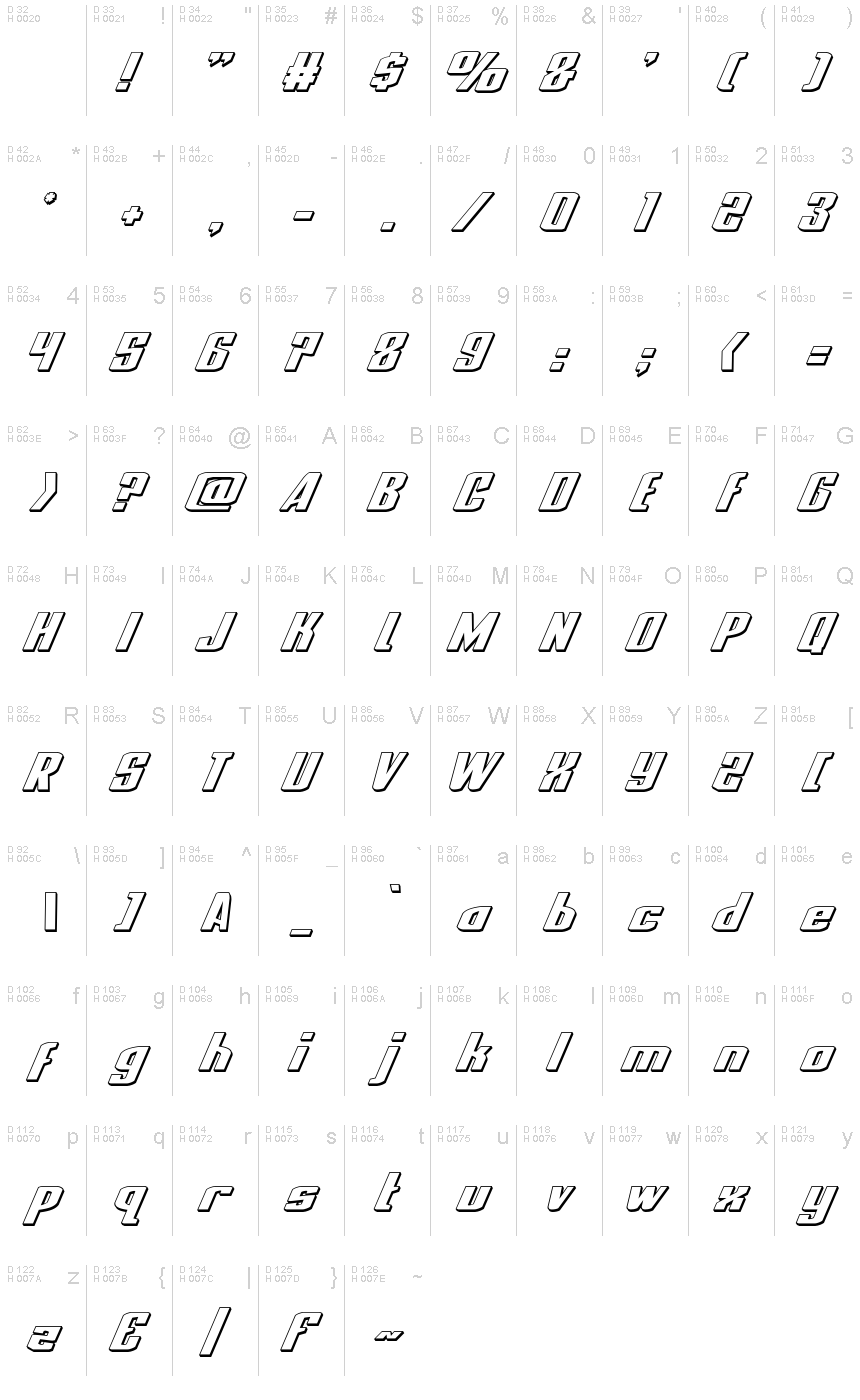
National Express 3D Italic
National Express 3D Italic is a striking display font that exudes a bold, technological charm. Designed by Daniel Zadorozny, this condensed font boasts a three-dimensional aesthetic, creating a sense of depth and dimension that instantly commands attention.
The angular, techno-inspired letterforms seamlessly blend futuristic flair with a hint of retro-futuristic influence, making it an exceptional choice for a wide range of design applications, from eye-catching headers and logos to dynamic packaging and branding.
With its strong visual impact and versatile personality, National Express 3D Italic is a captivating font that can elevate any project into a modern, cutting-edge expression.